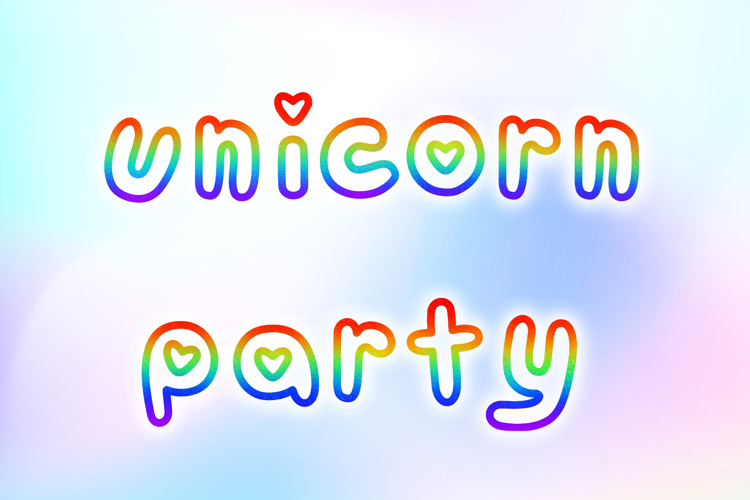
unicorn party Font
About unicorn party Font
A coloring font, inspired and done for my daughter who loves unicorns! Includes Greek and special characters.